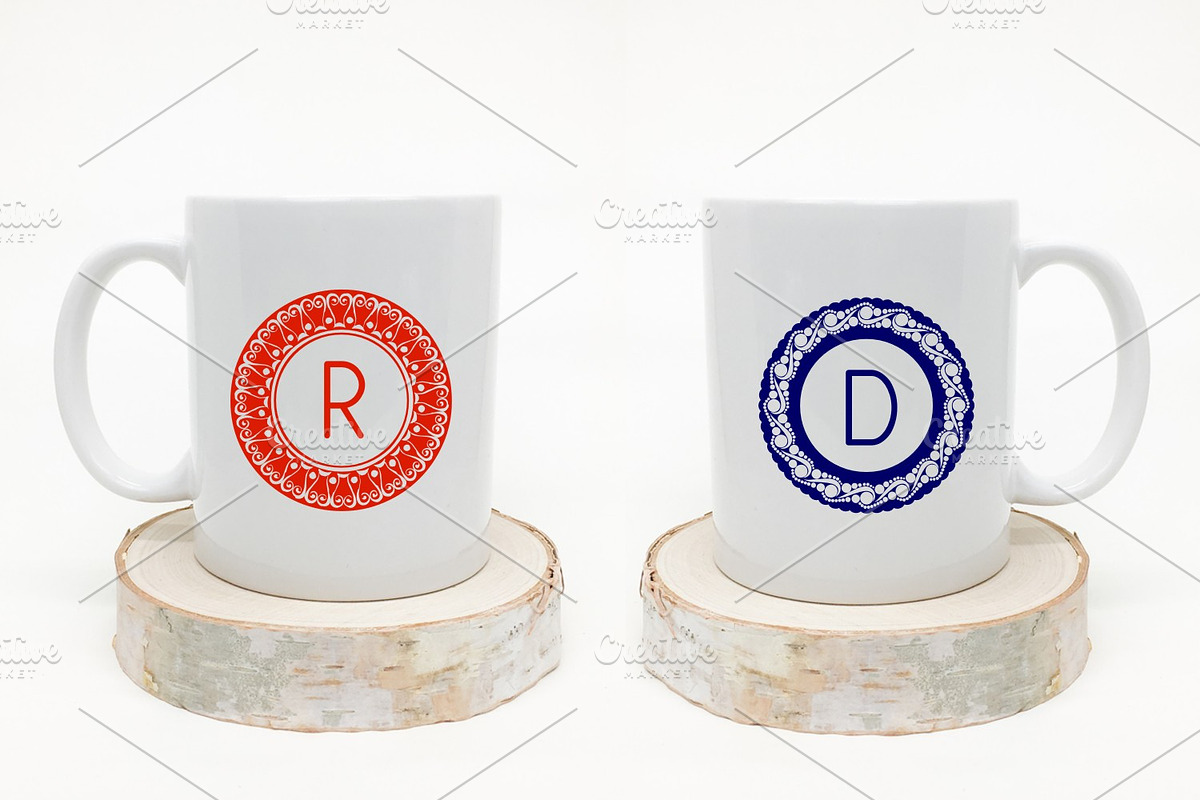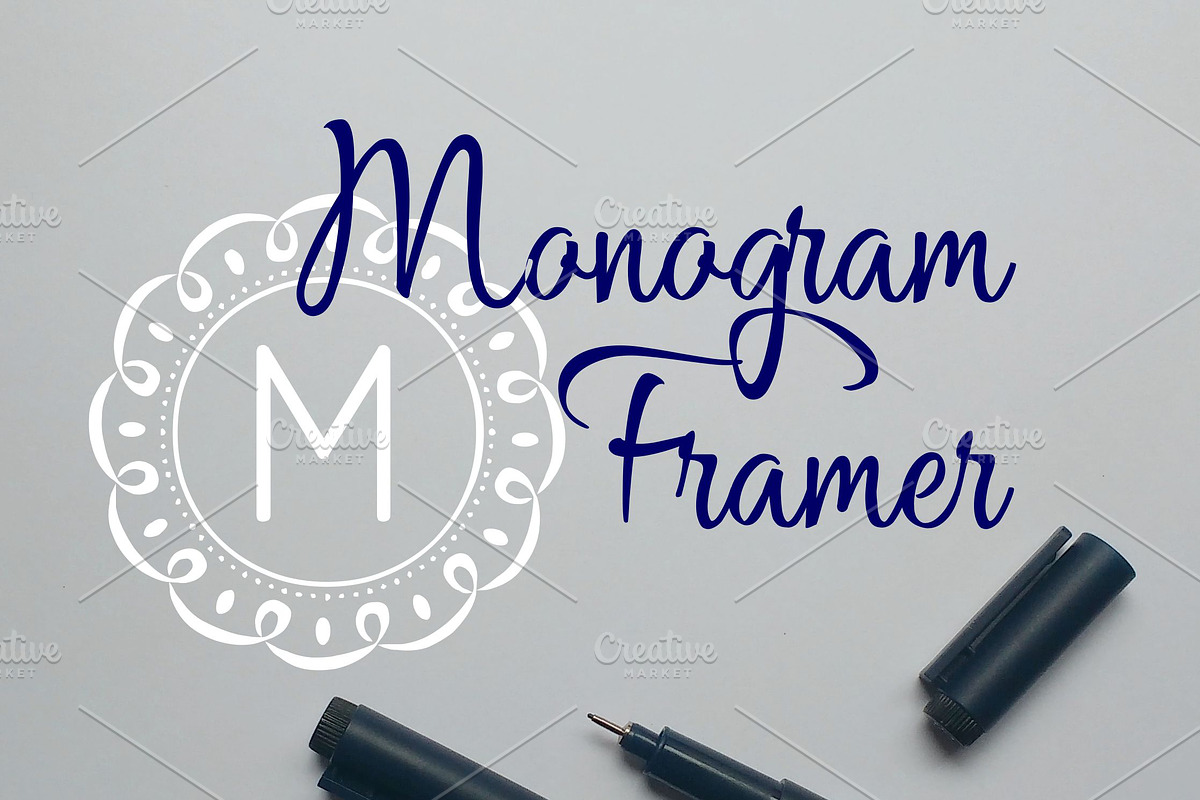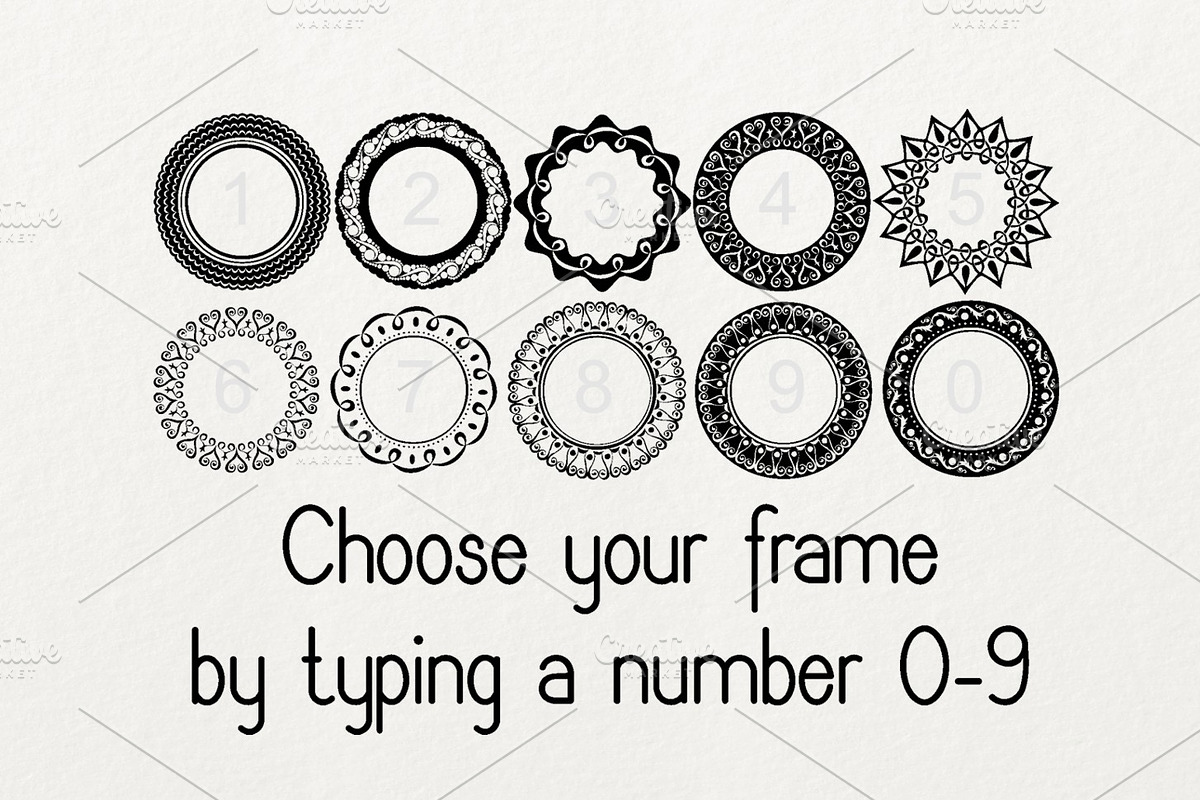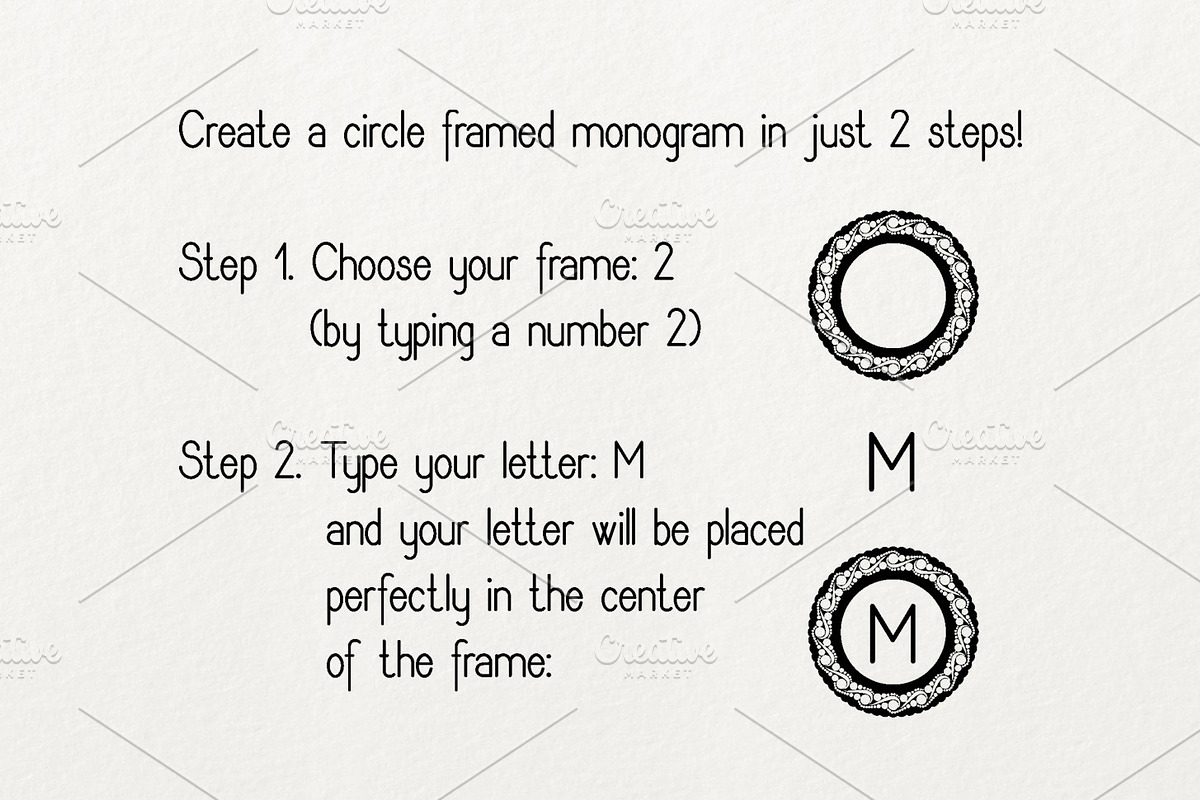
Monogram Framer
Monogram Framer Font is great to create a decorative monogram - in just 2 easy steps!
Step 1 - Type a number (choose a number 0-9 to select a frame)
Step 2 - Type your letter (without space)
and your letter will be placed perfectly in the center of the frame.